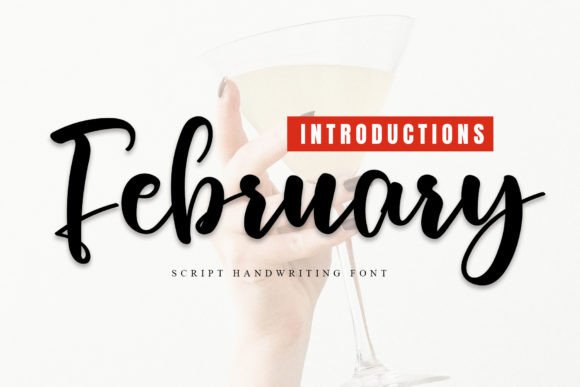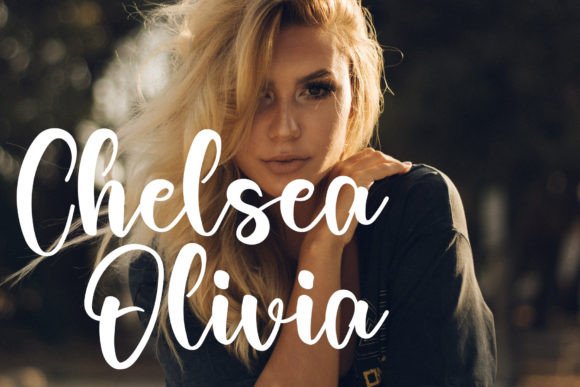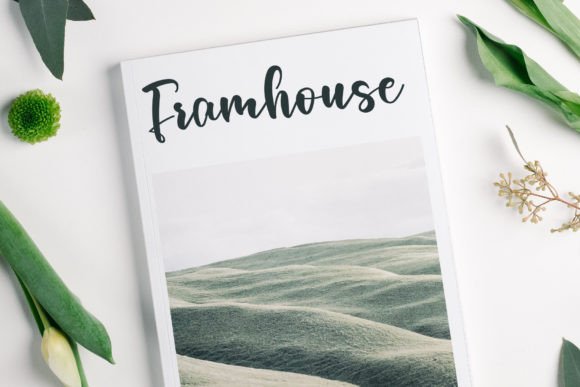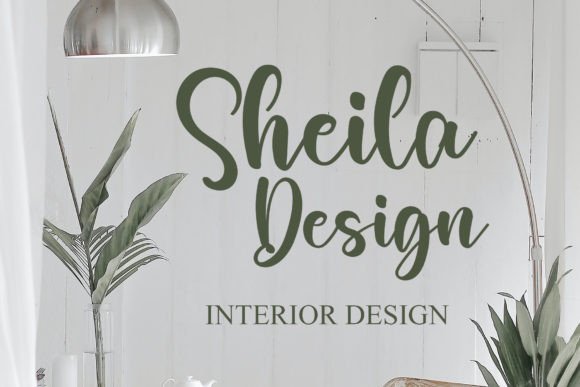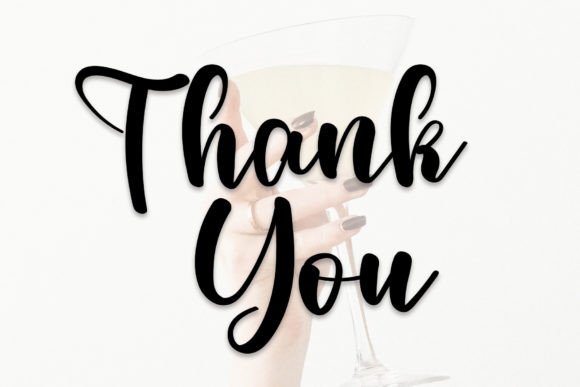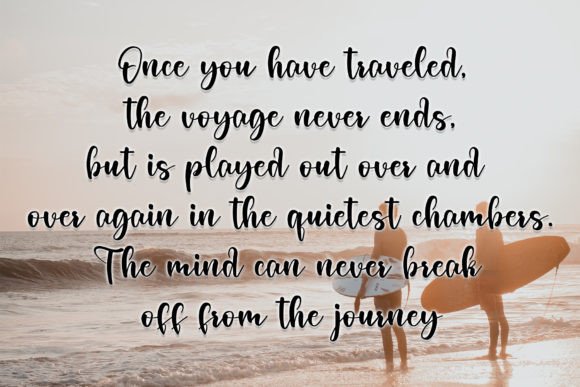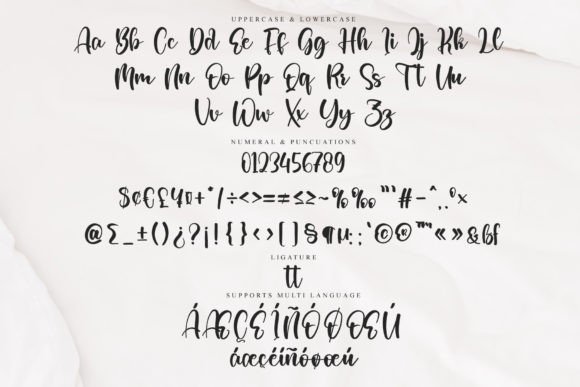
February Font
What Is February Font?
February Font is a stylish and dainty script typeface designed to bring elegance and sophistication to any project. With its delicate curves and graceful flow, each letter captures the refined beauty of classic calligraphy while maintaining a fresh, contemporary feel. Whether you want to convey romance, luxury, or artistic flair, February helps your work stand out with its captivating character.
Its polished style makes it a favorite among designers looking for a versatile script that pairs perfectly with both modern and traditional aesthetics.
February Font shines across a wide variety of applications. For example, it’s an excellent choice for logos and branding. The intricate letterforms help create a distinctive, high-end look that instantly elevates your visual identity. From luxury boutiques to creative studios, February makes any brand feel more memorable.
In packaging and labels, this script adds charm and sophistication. Whether you’re designing for cosmetics, gourmet products, or handmade items, February gives your packaging a touch of artistry and refinement that catches the eye.
Photography and watermarking are also ideal uses for February. The dainty script overlays seamlessly onto images, adding a personal signature or subtle branding element without overpowering your work. From wedding photography to lifestyle shoots, February makes your visuals feel polished and elegant.
Special events, such as weddings and upscale celebrations, are the perfect occasions to showcase this script. Use it on invitations, place cards, signage, or menus to create a romantic, cohesive atmosphere that guests will remember.
Social media graphics, blog headers, and promotional materials also benefit from February’s graceful lines. Whether you’re sharing an inspirational quote or announcing a special offer, this font adds beauty and sophistication to every message.
Why Should You Choose February Font?
One of February Font’s greatest strengths is readability. Despite its detailed style, every letter remains clear and legible in all sizes. Whether you’re designing small labels or large headlines, your text will always look crisp and professional.
Another advantage is how effortlessly it pairs with other fonts. Combine February with clean sans-serif or minimalist serif typefaces to create layouts that are balanced and modern while still feeling refined.
Designers love that each glyph is meticulously crafted to deliver polished results straight out of the box, saving time and improving the quality of every project.
February Font brings sophistication, warmth, and authenticity to your designs. Its graceful letterforms create an emotional connection with your audience, making your work feel thoughtful and inspiring.
Even the simplest layouts gain elegance and impact with February. From delicate wedding stationery to striking logos, this script has a way of making every composition feel more special.
February Font is more than just a beautiful script—it’s a versatile design asset that helps you express your ideas with elegance and charm. From logos and packaging to wedding invitations and social media graphics, this font adapts seamlessly to any application and always leaves a lasting impression.